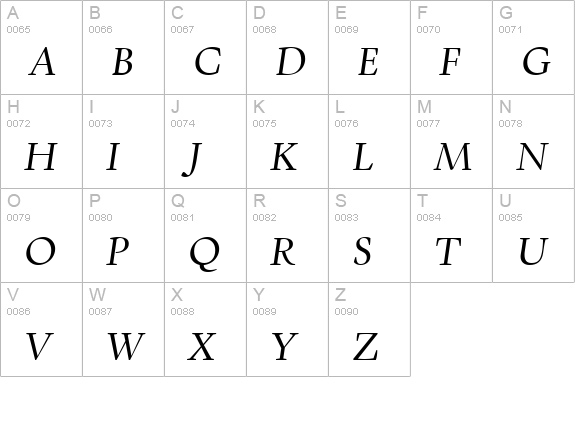
Kennedy Book Italic GD Font Details
Kennedy Book Italic GD is a comfortable, highly readable, italic variant in the Kennedy typeface family \xE2\x80\x94 well suited to long-form body text, articles, and editorial content.
Introducing Kennedy Book Italic GD font, a stunning and versatile typeface that exudes grace, elegance, and sophistication. This font is perfect for adding a touch of sophistication to any design project, whether it be for print, web, or branding purposes. Kennedy Book Italic GD font features a unique combination of soft curves and sharp edges, creating a harmonious balance between tradition and modernity. Its italic style adds a sense of dynamic movement and visual interest, making it an ideal choice for headlines, subheadings, and emphasis within a text. With its extensive character set, Kennedy Book Italic GD font supports multiple languages, ensuring that your message can be effectively communicated across various cultural contexts. The font's legibility and readability make it suitable for a wide range of applications, including editorial design, packaging, advertising, and more. One of the most exciting aspects of Kennedy Book Italic GD font is that it is available for free. Yes, that's right, this incredible font can be downloaded at absolutely no cost from FontsMarket.com. This accessibility allows designers, students, and enthusiasts alike to experiment, explore, and create without any financial constraints. So, whether you're a seasoned graphic designer searching for a new typeface to elevate your designs or a novice looking to add a touch of sophistication to your personal projects, Kennedy Book Italic GD font is the perfect choice. Download it for free at FontsMarket.com and unlock a world of creative possibilities.